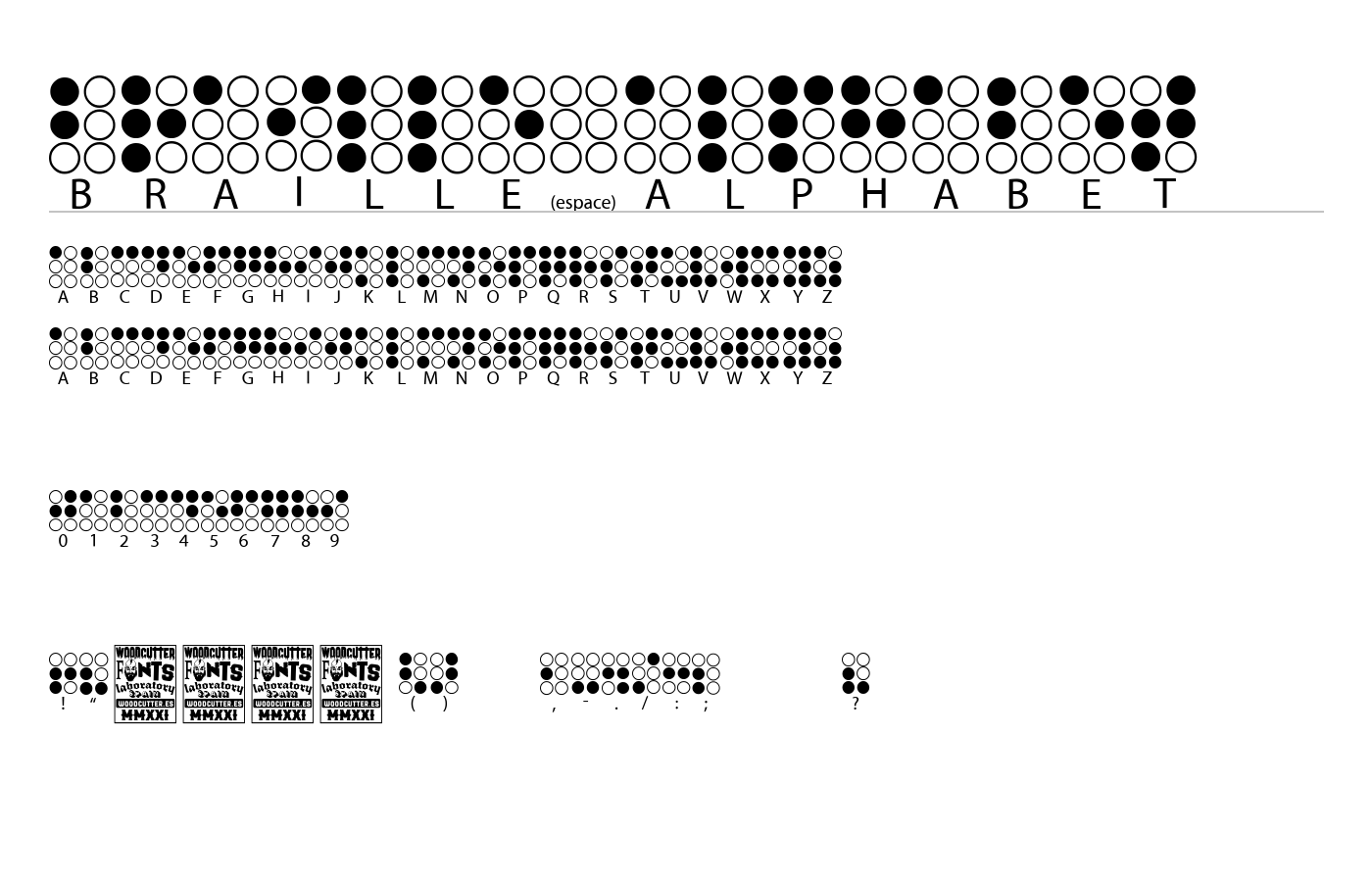
Braille Alphabet Font is a unique, geometric sans-serif typeface that visually represents Braille characters through distinct black and white dot patterns in a clean, modern style. Its consistent dot grid and simple shapes make it ideal for creative projects that aim to evoke accessibility, education, or tactile communication. This font works best in logos, posters, and educational materials where a bold, conceptual, and inclusive design statement is desired.
Braille Alphabet Font
About Braille Alphabet Font